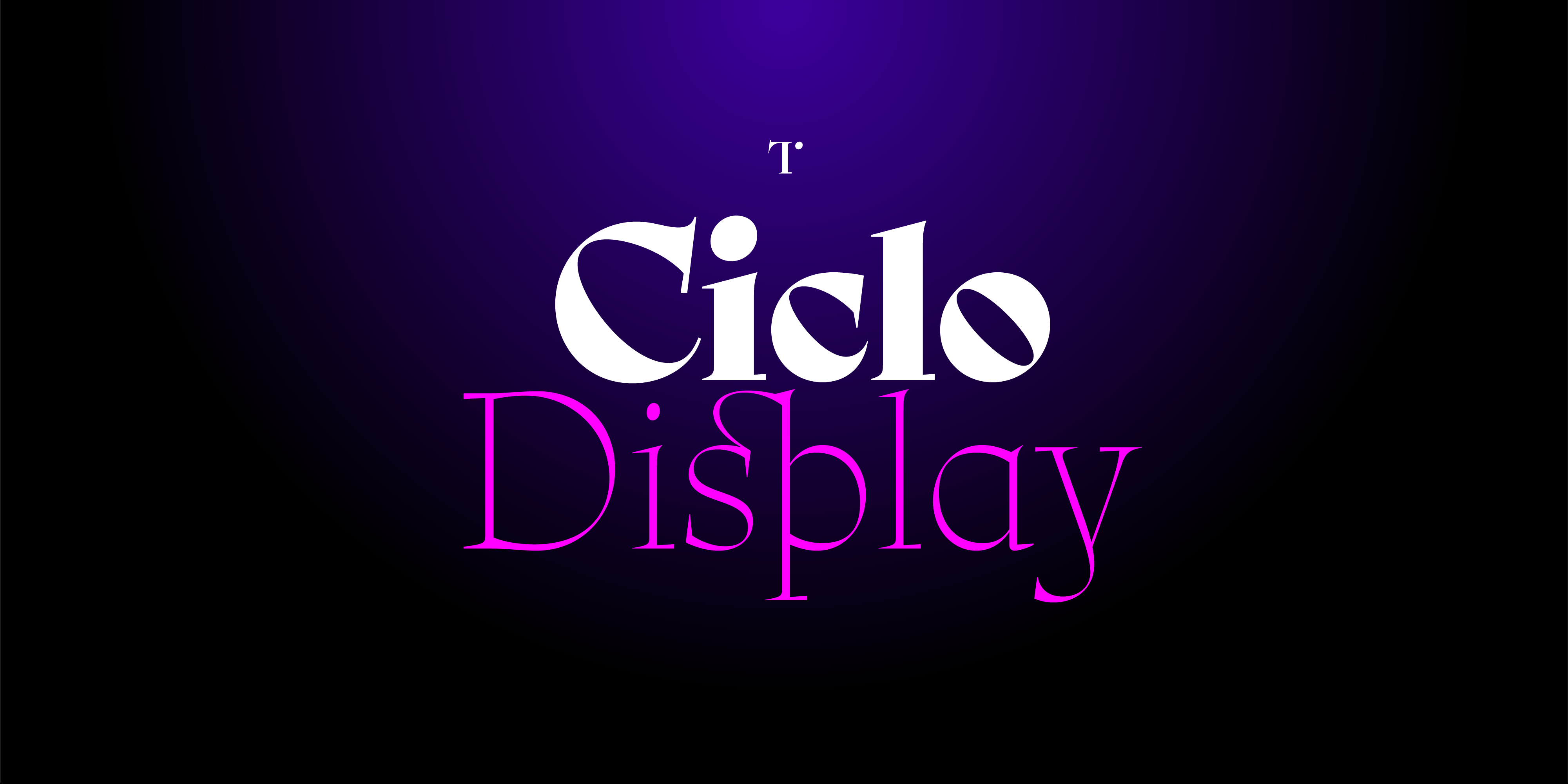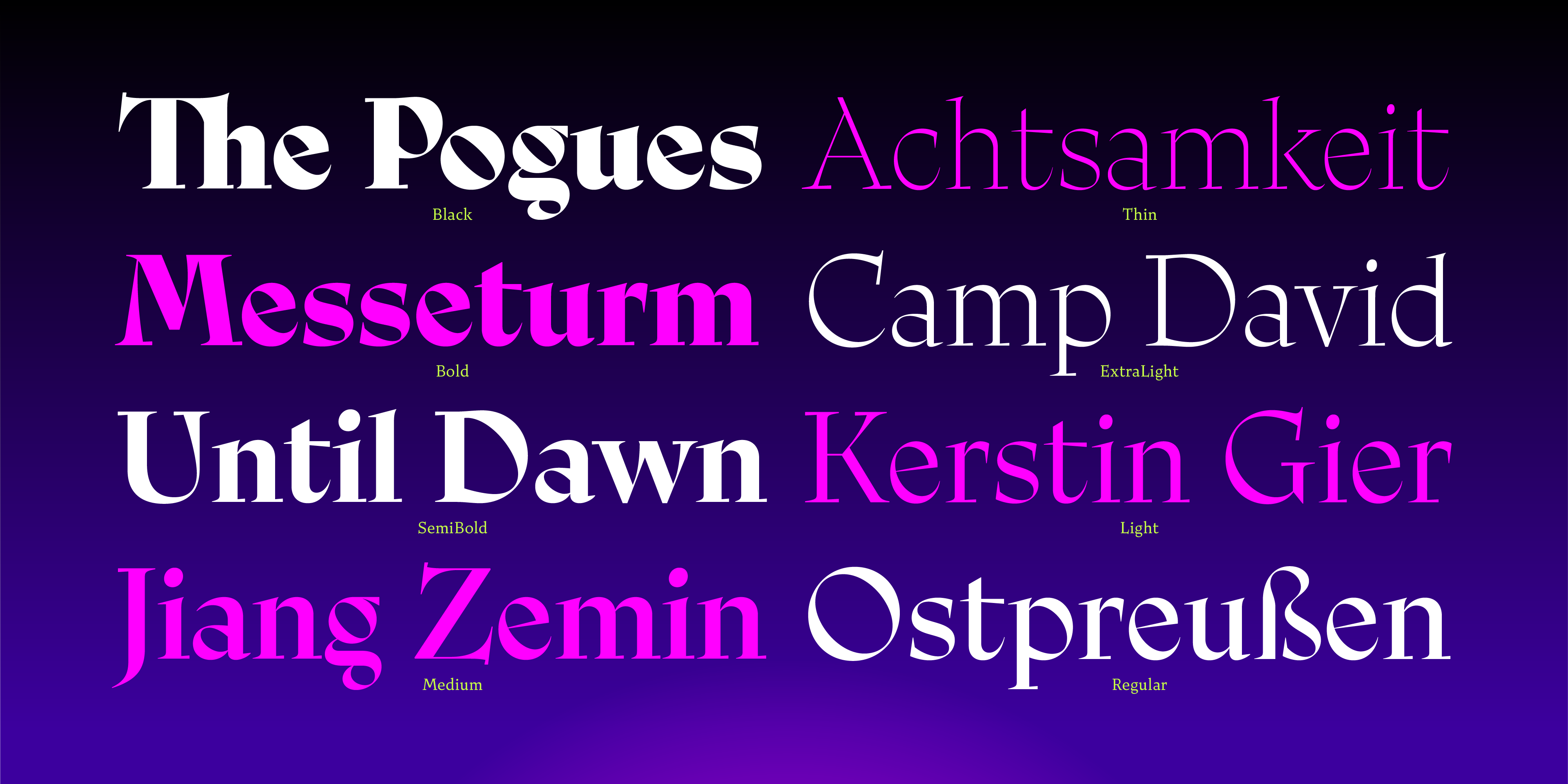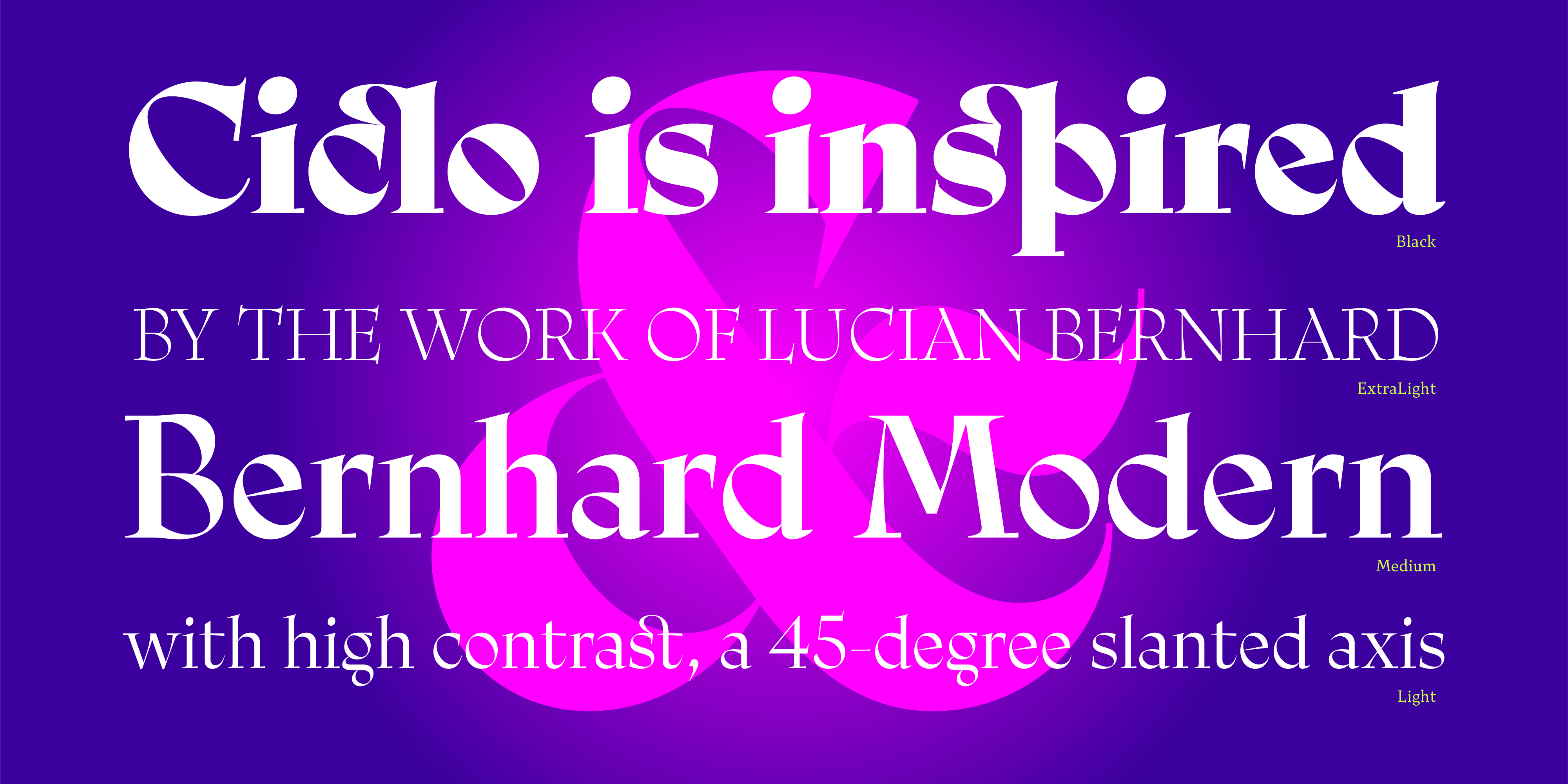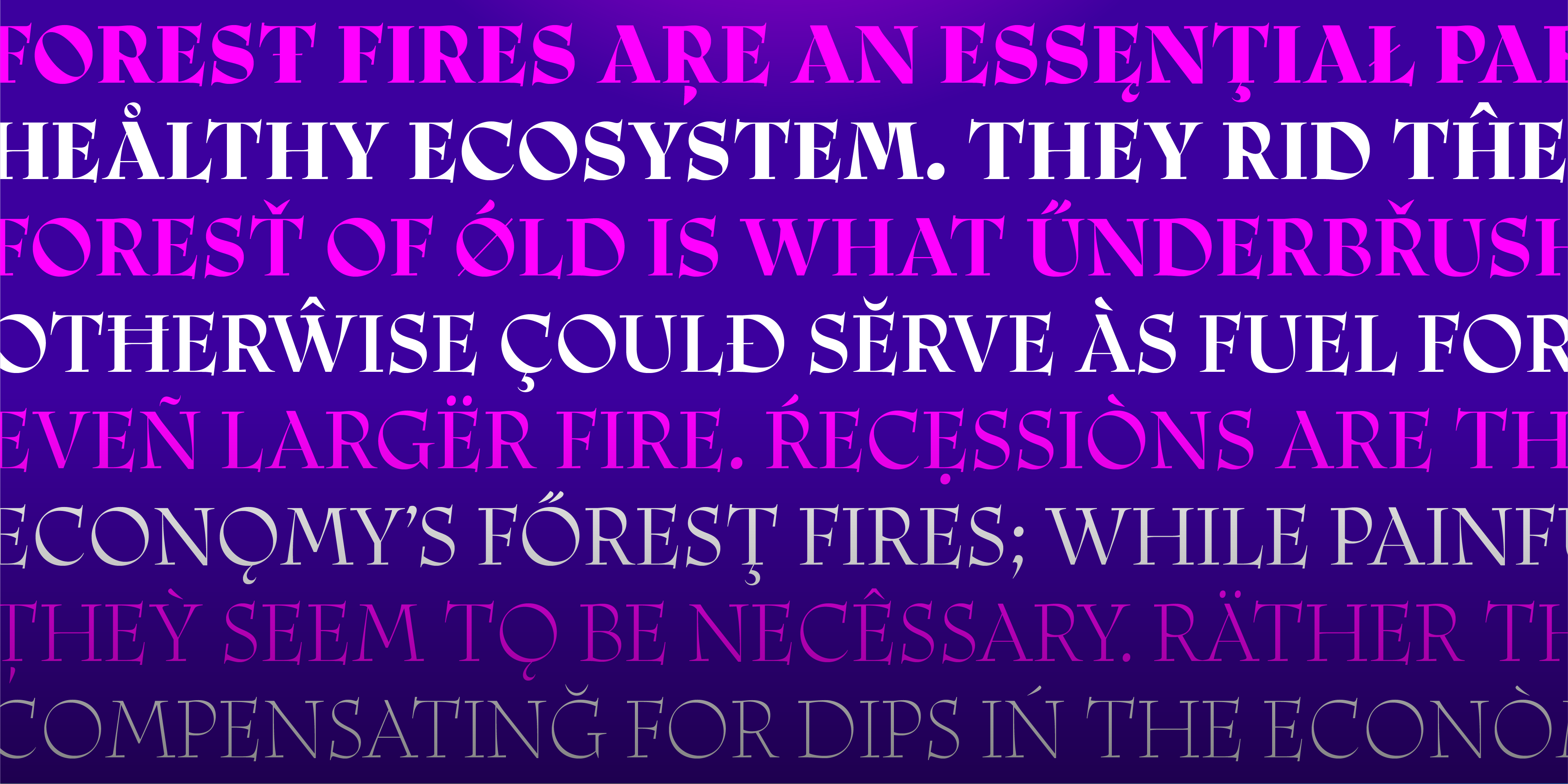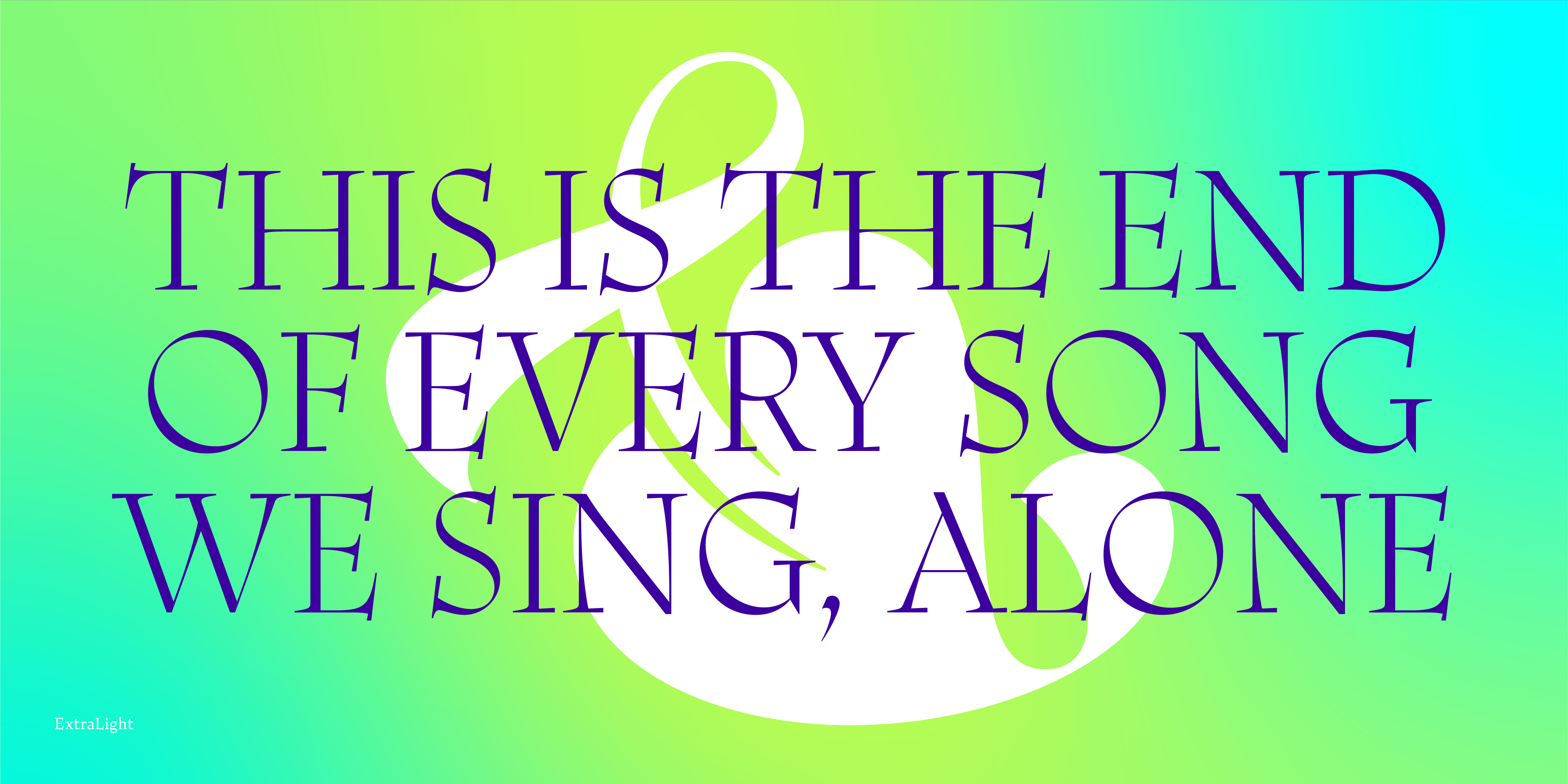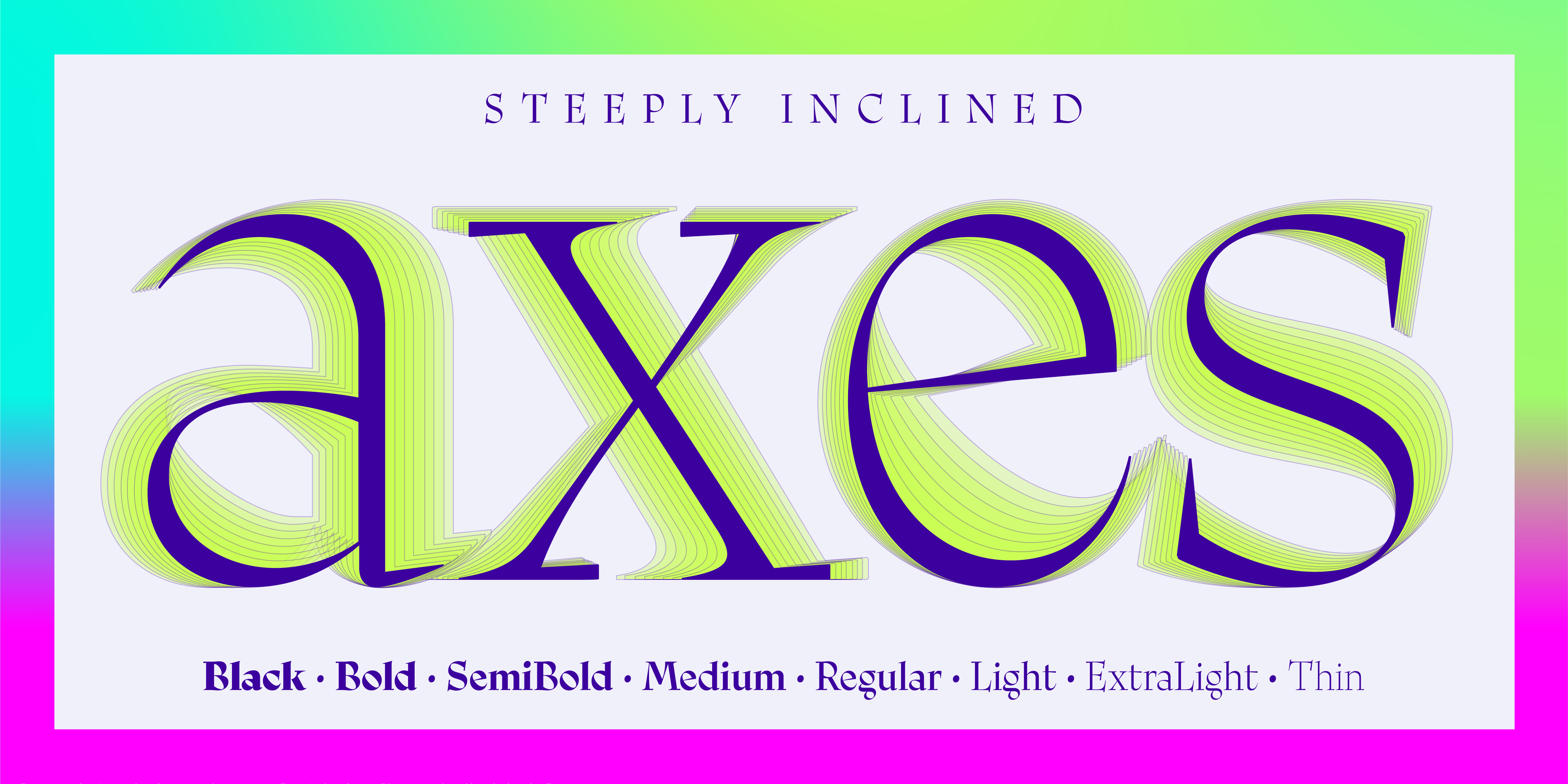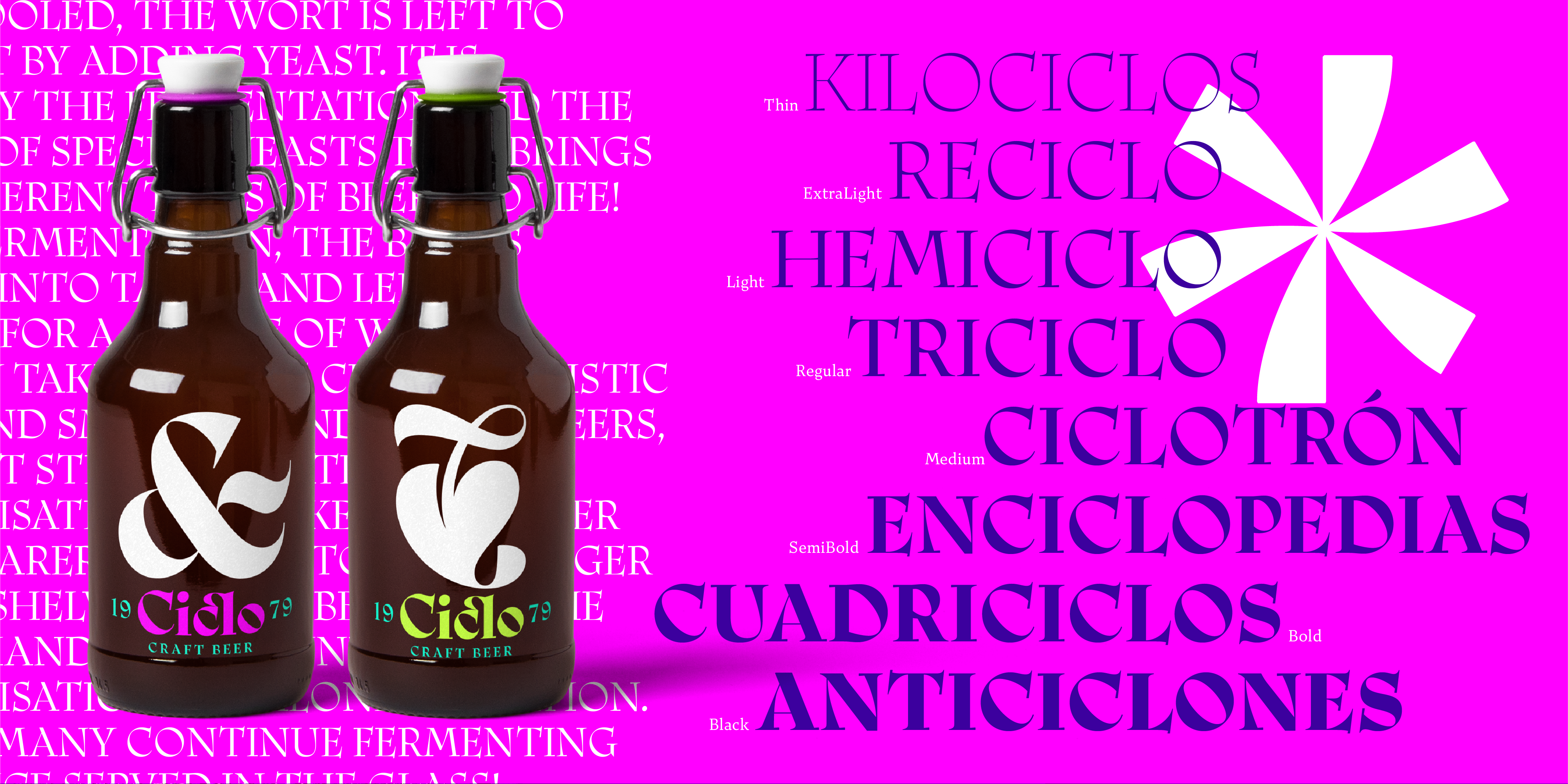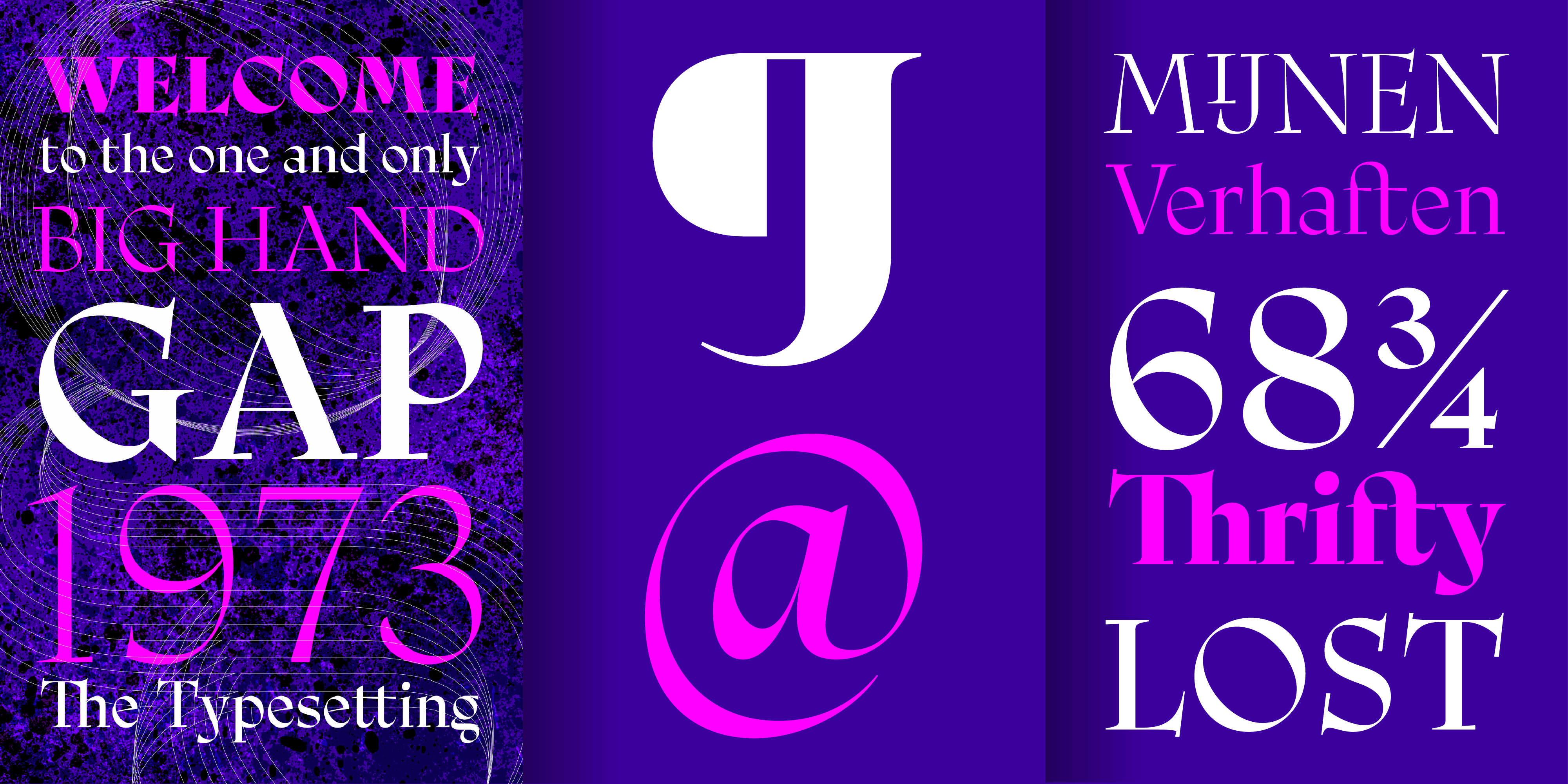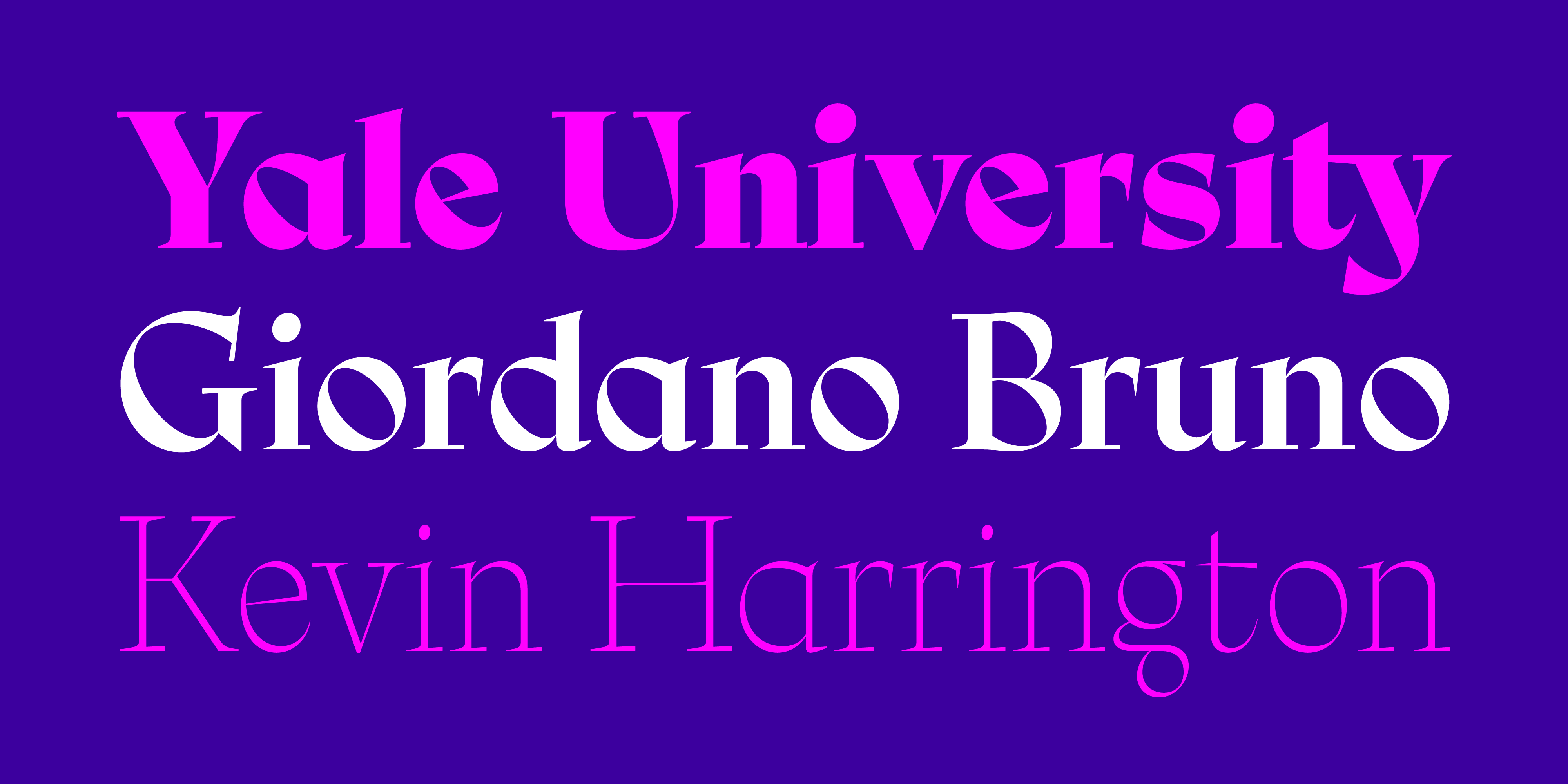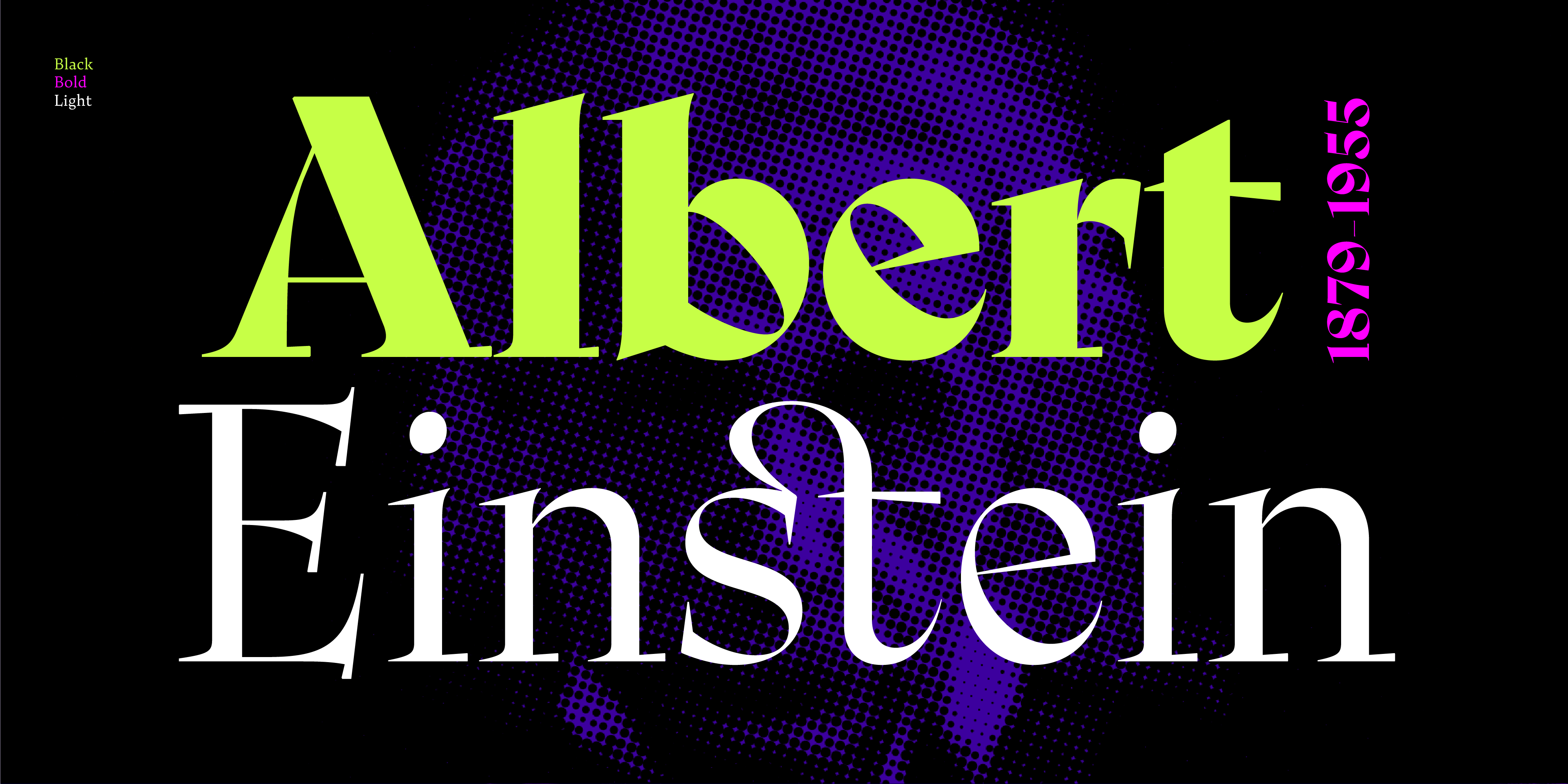
Ciclo Display
A high-contrast display typeface with a dramatically inclined axis.
Ciclo Display is a typeface inspired by the work of Lucian Bernhard, specifically Bernhard Modern. Its high contrast and dramatically inclined axis create a distinctive typographic character designed for display sizes.
A Display Typeface Inspired by Lucian Bernhard
Ciclo is a type system inspired by the work of Lucian Bernhard, specifically Bernhard Modern, with high contrast and a dramatically inclined axis.
The inclination of the internal axis, nearly 45 degrees in some characters, was found to be a particularly intriguing aspect of the original reference.
A Steep Internal Axis
To that end, I have endeavored to preserve a notably steep angle in the majority of the characters within the Display family. The rotation of the internal axis is a defining characteristic of Ciclo Display, giving the typeface its distinctive visual rhythm and expressive personality.
Part of the Ciclo Type System
Ciclo is conceived as a type system rather than a single display style. The system includes a Display family with higher contrast and a steeper tilt angle, as well as a Text family with lower contrast and a reduced tilt angle for easier reading.
The system also explores a third variant, Subhead, created through the interpolation between the Display and Text versions. In this system, the angle of the internal axis becomes a factor that determines the optical sizes of the different variants.
Designed for Display Typography
Ciclo Display is designed for expressive display typography, where high contrast, optical size, and the dramatically inclined internal axis become essential parts of the typographic composition.
Ciclo Display — a high-contrast typeface defined by its dramatically inclined internal axis.